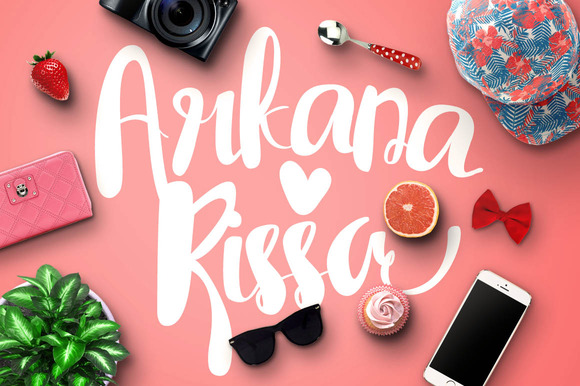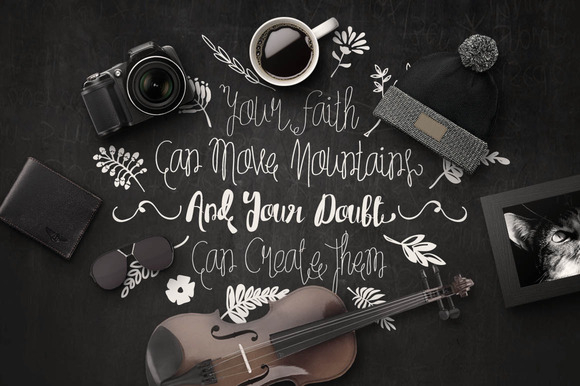
Tycho Font
About Tycho Font
Tycho is a smooth hand-drawn font created by Maulana Creative.
The Tycho font comes with 4 variations:
Tycho Regular
Tycho Hairline
Tycho Light
Tycho Ornaments